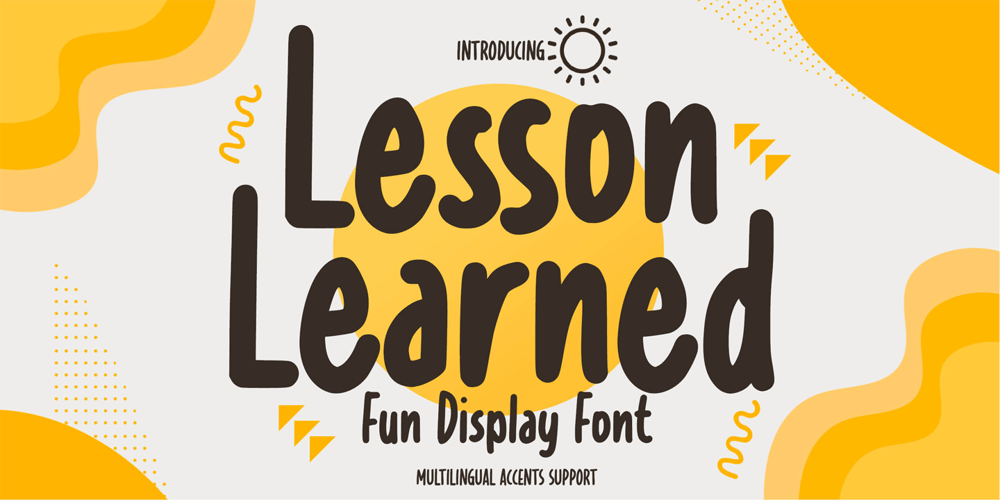
Lesson Learned Font Family was designed by Abdul Malik Wisnu, Anang Fibriyanto and published by Gassstype. Lesson Learned contains 1 styles and family package options. Introducing Lesson Learned is Fun Display Font,This Font Authentic that is written casually and quickly. Then scanned and carefully drawn into vector format.This handmade font will make your design has a beautiful natural touch for each details. It is perfect for any design project as Invitation,logo, book cover, craft or any design purposes.That is why Lesson Learned has charming, authentic and relaxed characteristic more natural look to your text with a more natural look to your text.It also features a wealth of special features including Ligatures glyphs.